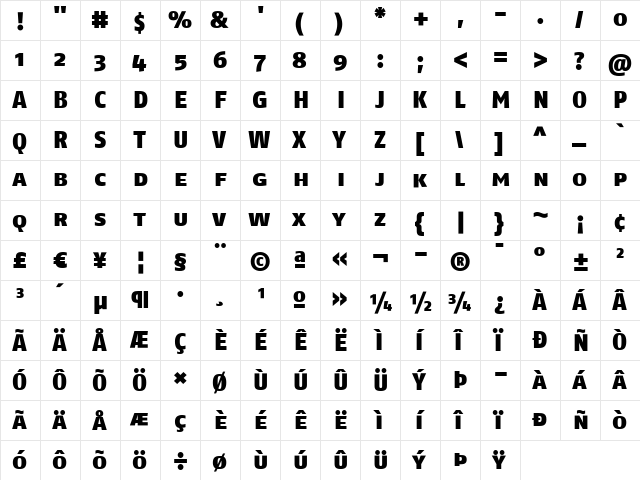
FagoNo Heavy Font Preview
FagoNo Heavy
Design Context for FagoNo Typeface
FagoNo offers clean, dependable letterforms without strong stylistic allegiance, making it a practical choice for designers who need flexibility.
Pro Tip: Use FagoNo in both headline and body roles to test its range before committing to a single application.